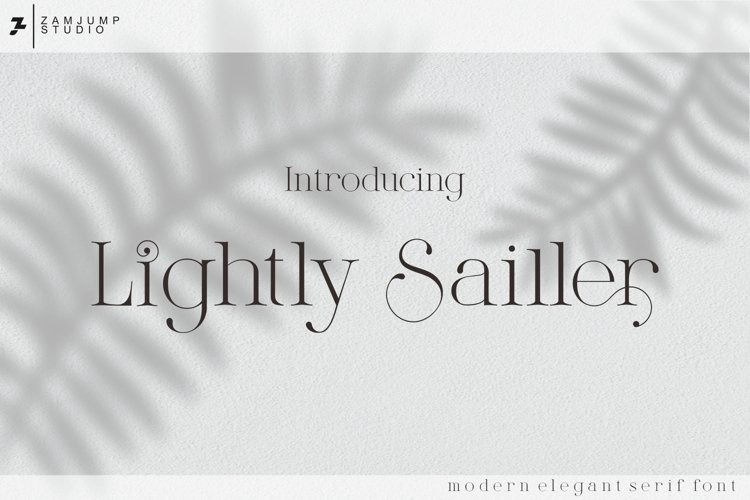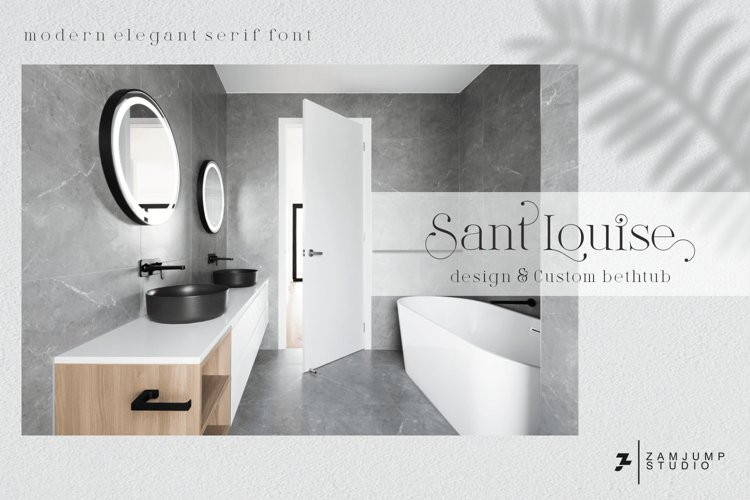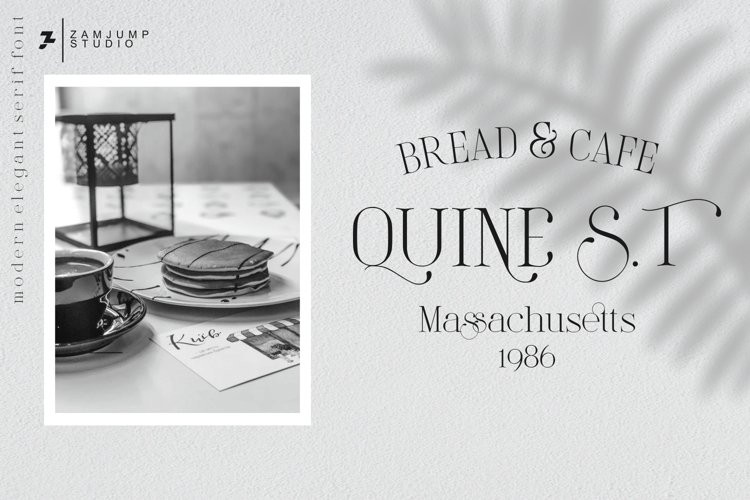
Lightly Sailler Font
Lightly Sailler FontLightly sailler is a beautiful new serif font that’s created to complement a classic style for your project needs to be more perfect.
Classic curves and sharp serifs make the Lightly sailler Serif feel elegant and nostalgic, at the same time, while still leaving enough simplicity to use for both headings and body types. It is also equipped with four special ligatures (ct, st, it, ck, sl, el, et, the, and end) as well as alternate features either capital or lowercase with a little tail that bumps the letters after which is a combination idea to give a more elegant impression. provides extra flair and body text legibility.